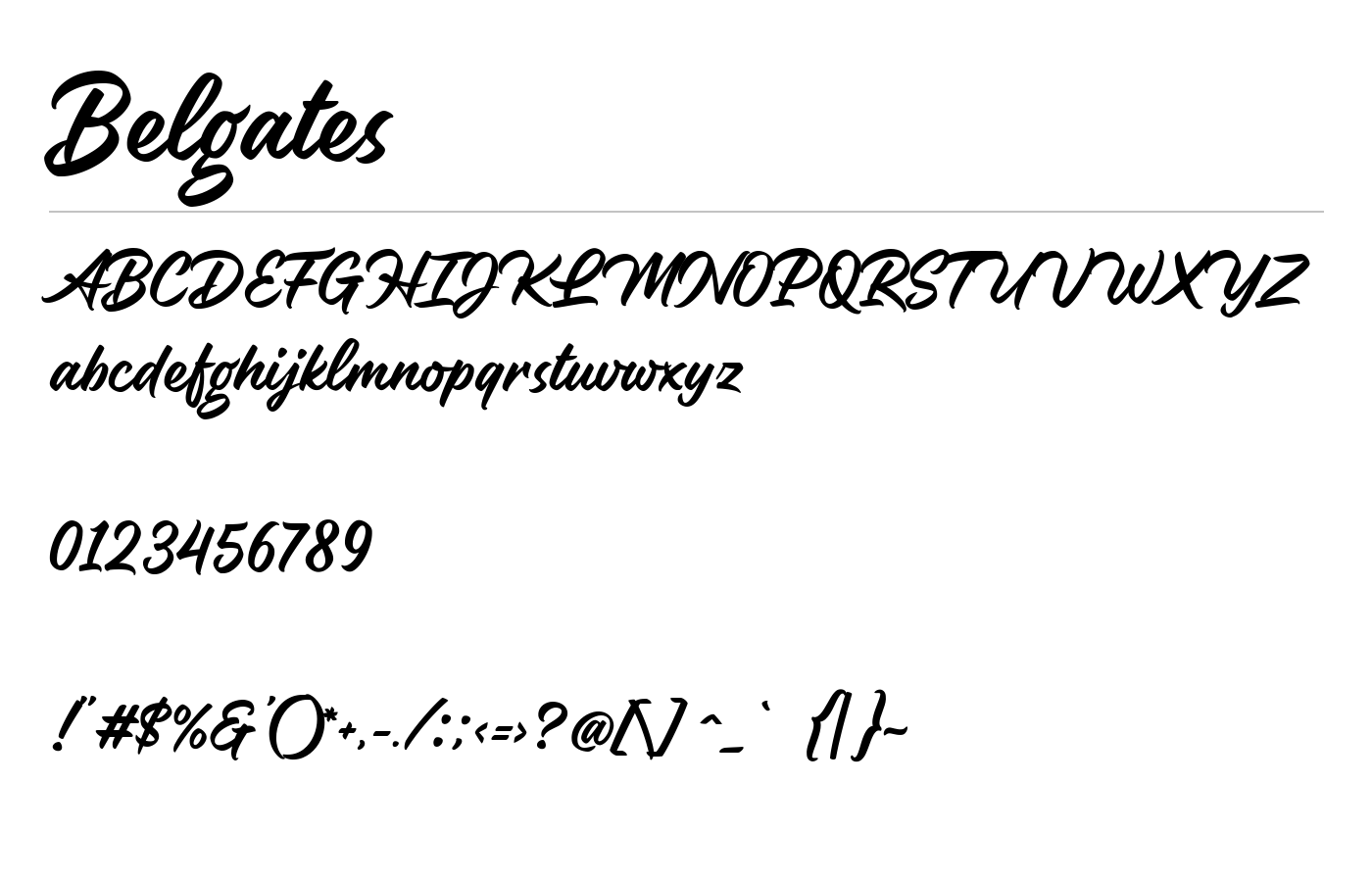
Belgates is a stylish brush script font that combines smooth, flowing strokes with a confident, slightly casual feel. Its medium weight and moderate contrast make it ideal for eye-catching headlines, branding, and invitations, offering a warm and approachable personality suited to creative and lifestyle projects. This font works best where a natural, handcrafted look is desired, bringing elegance without losing a friendly charm.
Belgates Font
About Belgates Font
| Font family | Belgates Font |
| Designer | Hendra Pratama |